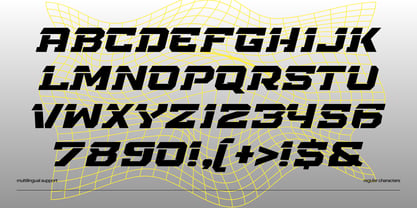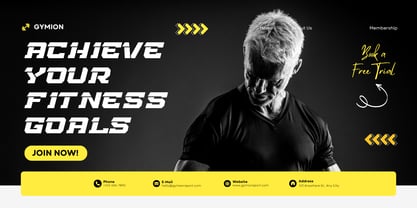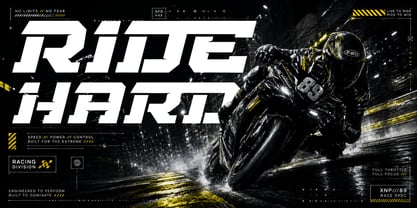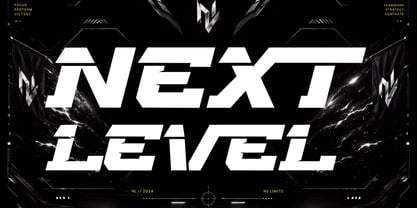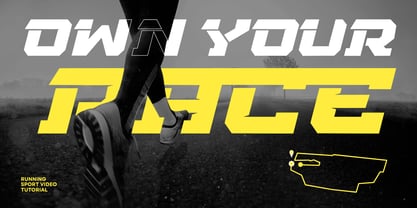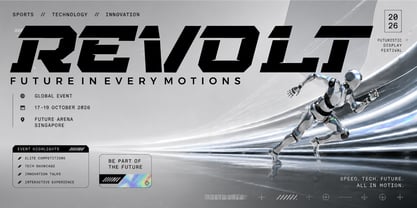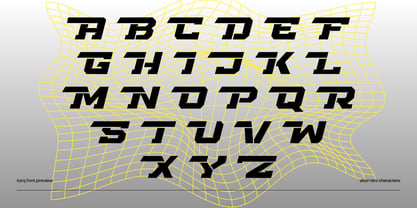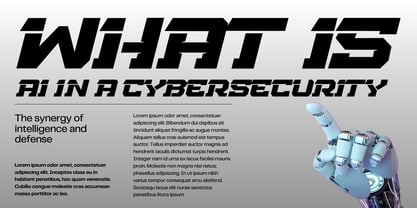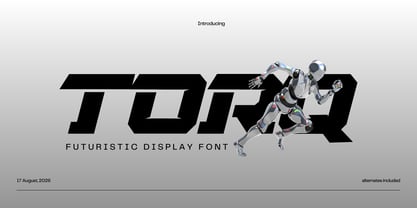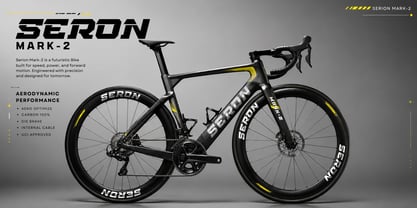
Torq
TORQ is a futuristic sport display font designed to give headlines, logos, posters, and visual identities an instant sense of speed, power, and advanced technology. Inspired by racing machines, futuristic interfaces, sci-fi aesthetics, esports culture, and modern athletic graphics, TORQ combines sharp geometric construction with aggressive cuts and a dynamic forward-moving silhouette.
Built for high-impact typography, TORQ is ideal for sports branding, esports identities, gaming graphics, automotive campaigns, motorsport posters, technology projects, event identities, apparel graphics, album artwork, advertising, packaging, editorial covers, and social media content. Its bold and angular appearance makes it especially effective for large headlines, titles, logos, and compositions where typography needs to become a strong visual element.
TORQ includes uppercase characters, numbers, punctuation, multilingual support, and stylistic alternates. The alternate glyphs offer additional creative possibilities for customizing words, creating distinctive lettering, and developing unique display compositions. Mix standard and alternate characters to achieve different visual rhythms and add more personality to logos, titles, badges, team graphics, posters, and futuristic layouts.
The character design balances an aggressive sports attitude with a sleek technological appearance, making TORQ versatile across both contemporary and futuristic projects. Its strong silhouette works beautifully in bold monochrome layouts, racing-inspired compositions, metallic artwork, cyber visuals, digital interfaces, and energetic promotional graphics.
TORQ is a strong choice for designers looking for a futuristic font, sport display font, racing font, esports typeface, automotive font, sci-fi display font, cyberpunk typography, geometric headline font, or bold modern typeface. From championship graphics and racing campaigns to gaming titles and technology launches, TORQ gives every word a fast, powerful, and futuristic presence.